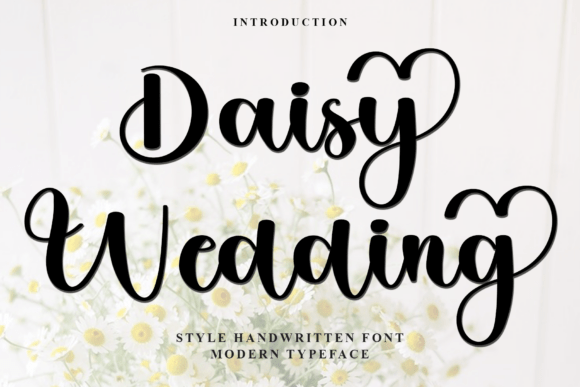
Daisy Wedding Font: Elevate Your Designs with a Touch of Elegance
The world of typography is vast and diverse, offering a multitude of fonts to suit various design needs. Among these, the Daisy Wedding font stands out for its unique blend of softness and distinctive character. This beautiful font is designed to add a touch of elegance and charm to any design project, making it a versatile choice for creatives. In this article, we’ll explore the features, benefits, and applications of the Daisy Wedding font, and how it can elevate your designs to new heights.
What is Daisy Wedding Font?
Daisy Wedding is a beautifully crafted font that boasts a soft, unique touch. Its distinctive strokes give it a special character, making it both meaningful and versatile for future use. This font is perfect for a wide range of design projects, crafts, and other creative works, thanks to its natural and eye-catching style.
- Unique Character: The font’s distinctive strokes and soft appearance make it stand out from more traditional fonts.
- Versatility: Suitable for various design projects, including crafts, creative works, and digital content.
Applications of Daisy Wedding Font
The Daisy Wedding font is incredibly versatile, making it suitable for a wide range of design applications. Its natural and elegant style ensures that it can be used across different artistic and creative fields, including:
- Wedding Invitations: Add a touch of elegance and romance to your wedding invitations and stationery.
- Digital Content: Enhance your blog posts, social media graphics, and website content with a unique and eye-catching font.
- Crafts: Perfect for handmade crafts, such as card making, scrapbooking, and DIY projects.
- Graphic Design: Use it for branding, packaging, and advertising materials to give your designs a distinctive look.
Tips for Using Daisy Wedding Font in Your Designs
To get the most out of the Daisy Wedding font, consider the following design tips:
- Pair with Complementary Fonts: Combine it with sans-serif fonts for a modern contrast or with other script fonts for a more elegant look.
- Adjust Font Sizes: Experiment with different font sizes to create visual hierarchy and emphasize key elements.
- Use in Moderation: While the font is beautiful, using it sparingly can make it more impactful and prevent overuse.
The Daisy Wedding font is a beautiful and versatile addition to any designer’s toolkit. Its unique character, combined with its compatibility across various platforms, makes it an ideal choice for a wide range of design projects. Whether you’re creating wedding invitations, digital content, or crafts, this font is sure to enhance your designs and appeal to a broad audience. With its natural and eye-catching style, the Daisy Wedding font is poised to become a favorite among creatives looking to add a touch of elegance to their work.